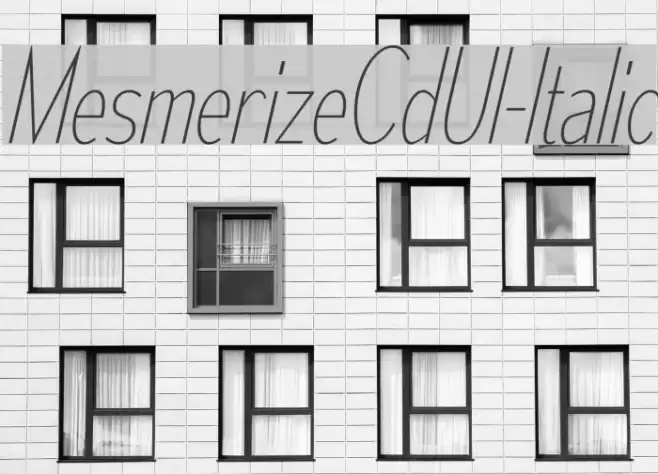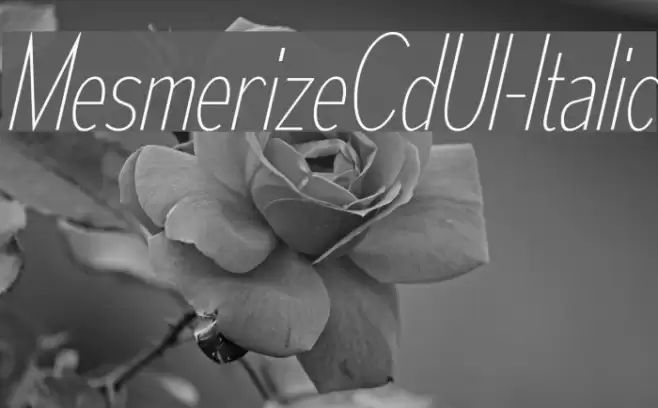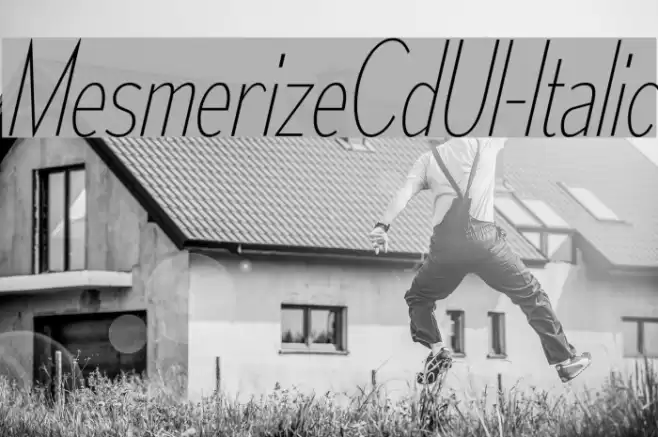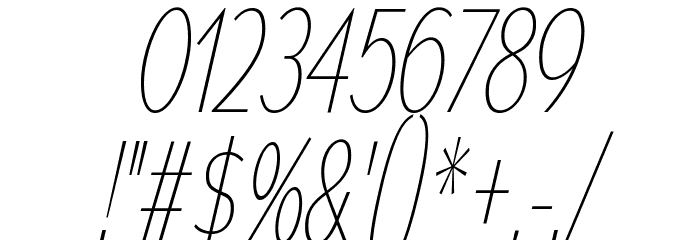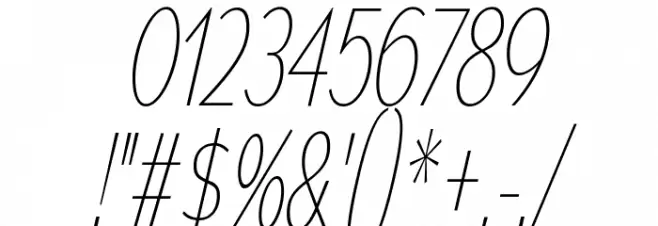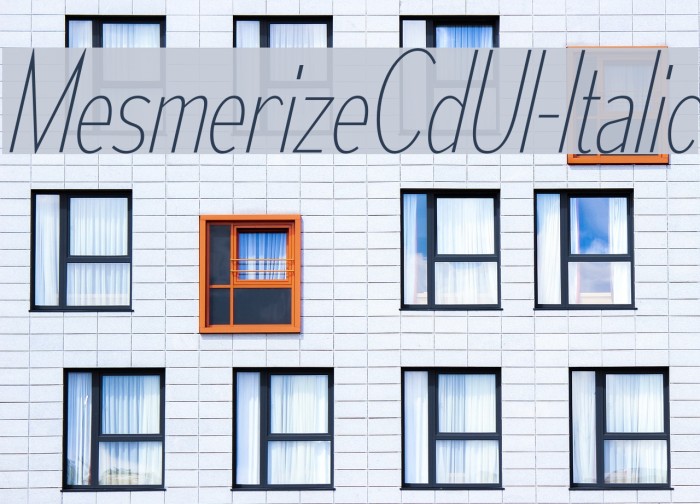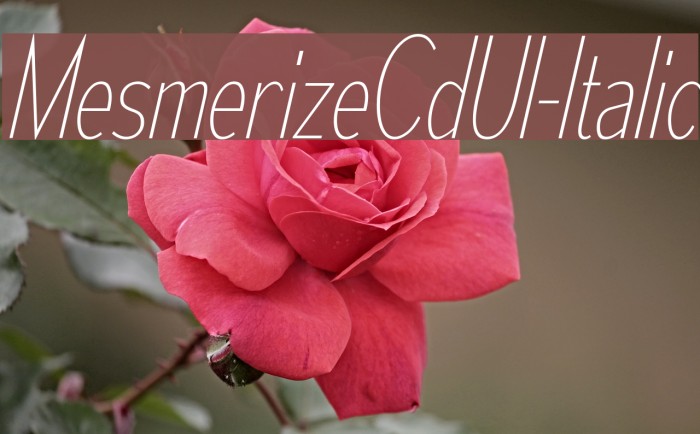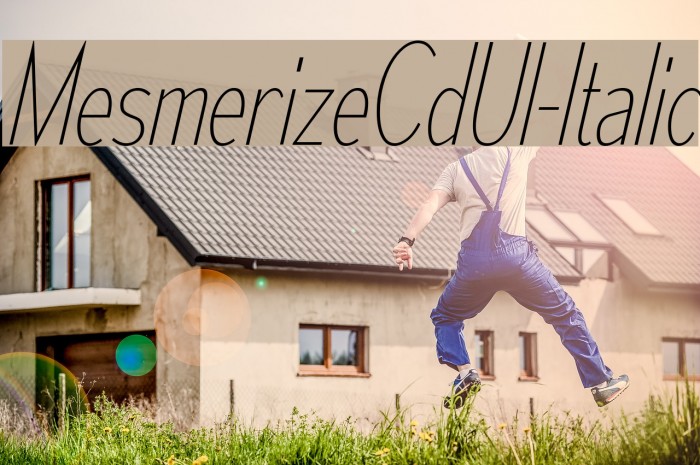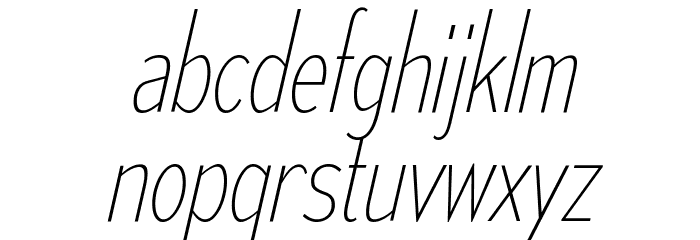
MesmerizeCdUl-Italic Font
MesmerizeCdUl-Italic Description
This font exhibits a sleek and modern design with a distinct italic style. The characters are elongated and slightly slanted, giving a sense of movement and elegance. The strokes are thin and consistent, contributing to a clean and sophisticated appearance. The uppercase letters are tall and narrow, while the lowercase letters maintain a similar proportion, enhancing readability. The numerals are uniform and align well with the overall style. Special characters are well-integrated, maintaining the font's cohesive look. This typeface is ideal for projects that require a contemporary and stylish touch.
A sleek, modern italic font with thin, elongated characters from Uncategorized fonts.
- Proposed Projects: Ideal for fashion magazines, modern branding, elegant invitations, and stylish website headers.
- Weight: Light